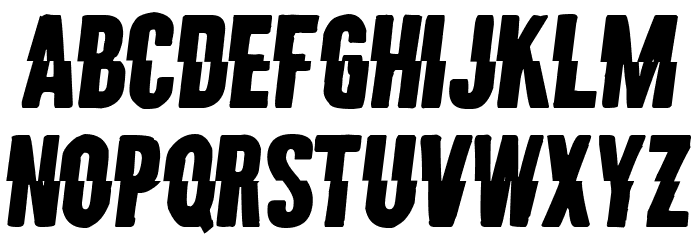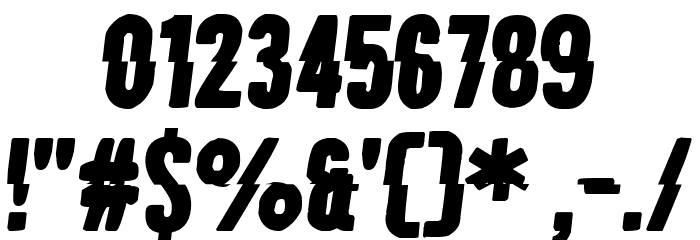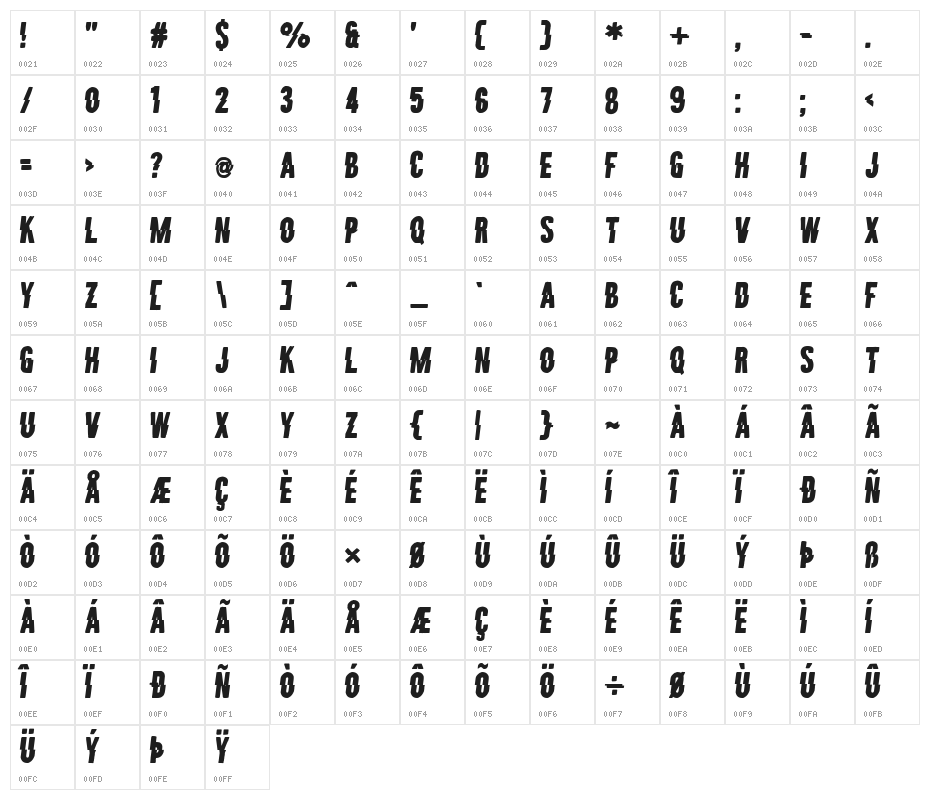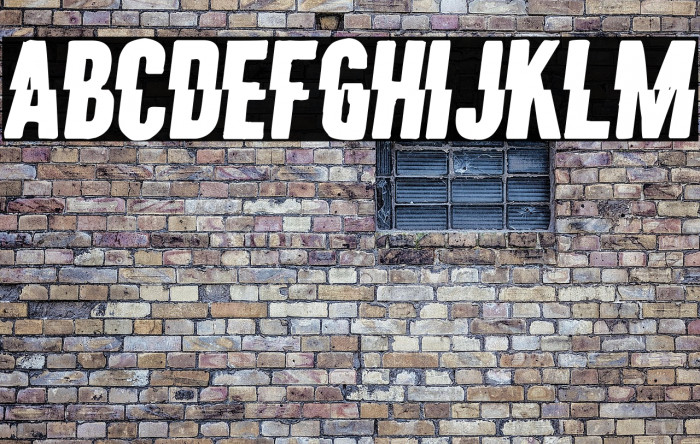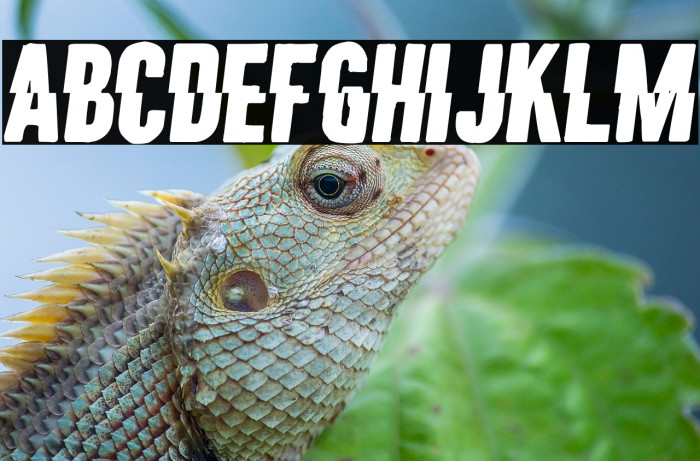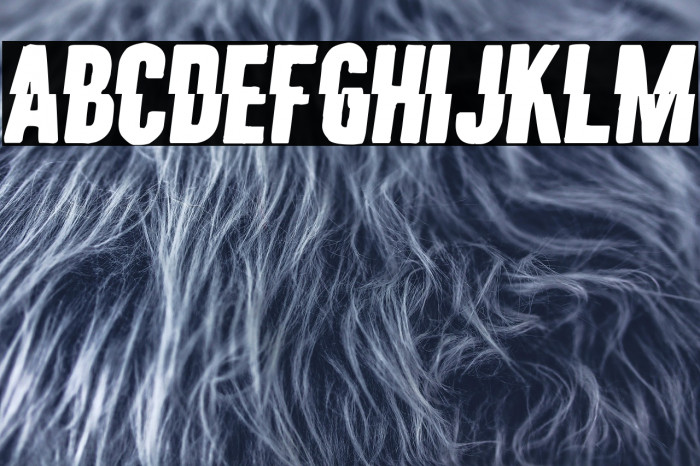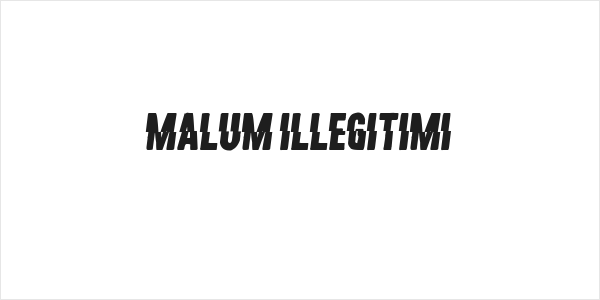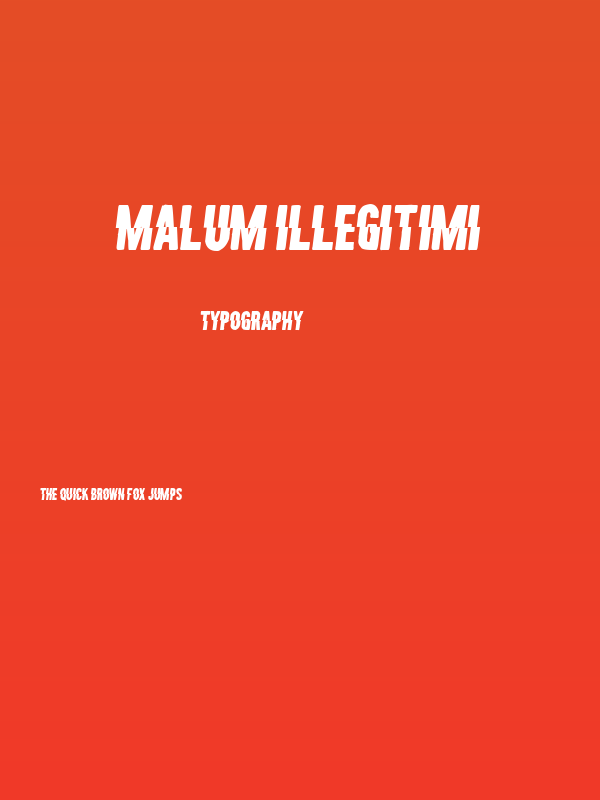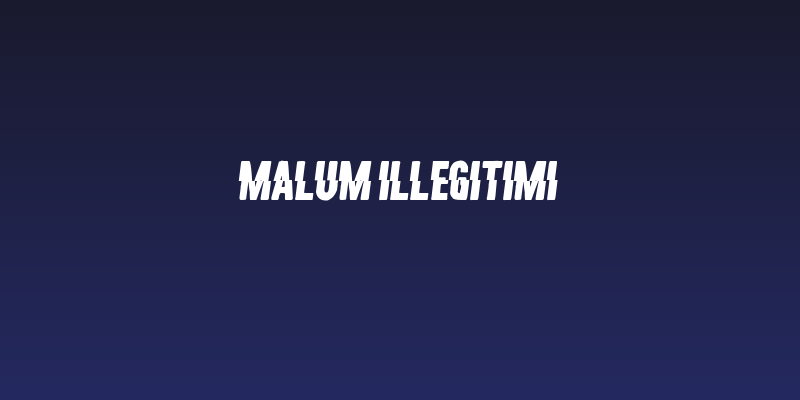
Malum Illegitimi Font
This bold and dynamic font features thick, angular strokes that convey a sense of strength and assertiveness. The uppercase letters are particularly striking, with a slight slant that adds a sense of motion and energy. The lowercase letters maintain the same boldness, ensuring consistency across text. Numbers and special characters are equally robust, making them stand out effectively. The overall design is modern and impactful, suitable for projects that require a strong visual presence.
A bold, dynamic font with angular strokes and a slight slant.
- Font: Malum Illegitimi
- Proposed Projects: Ideal for headlines, posters, branding, and any design requiring a strong, impactful font.